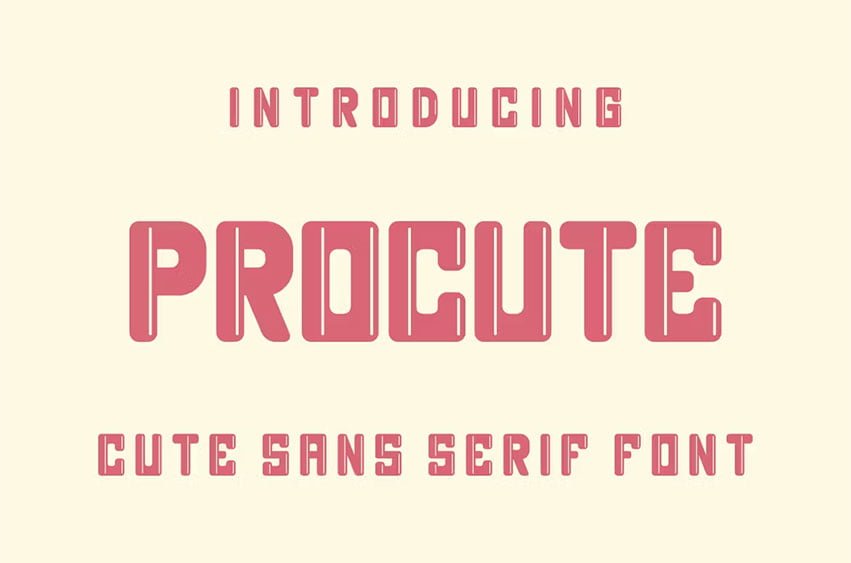
Procute Font Sans Serif Modern Font. Procute is a modern and simple font, best used as a display for magazines, product packaging and invitations. Procute come with clean lines and smooth curves give any project an extra touch of class.